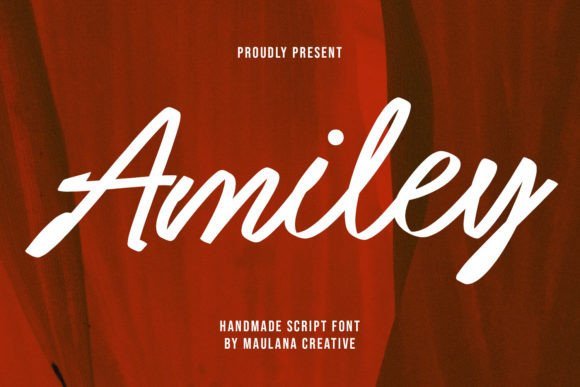
Introduction to Amiley Font
Amiley handmade script font.
This font is good for logo design, Social media, Movie Titles, book titles, short text even long text letters, and good for your secondary text font with signature or script typeface Make stunning work with Amiley’s handmade script font.
Key Features of Amiley Font
Why Choose Amiley Font?
Amiley Font offers exceptional quality and versatility, making it a valuable addition to your design toolkit. Whether you’re creating for personal projects or commercial use, Amiley Font delivers professional results.